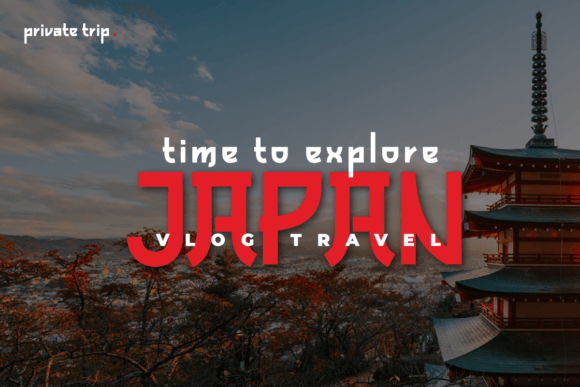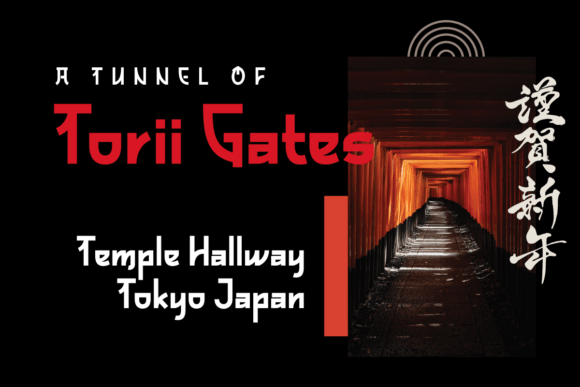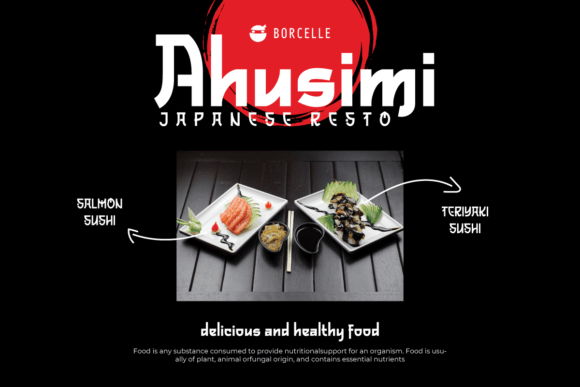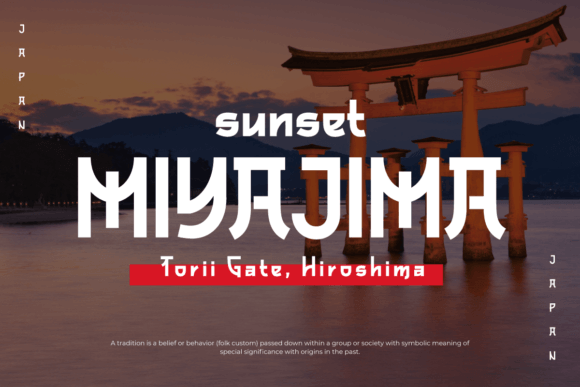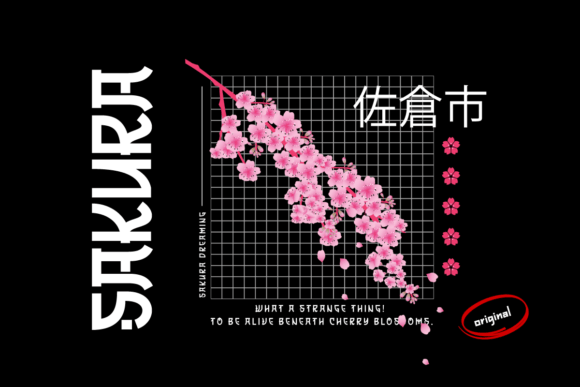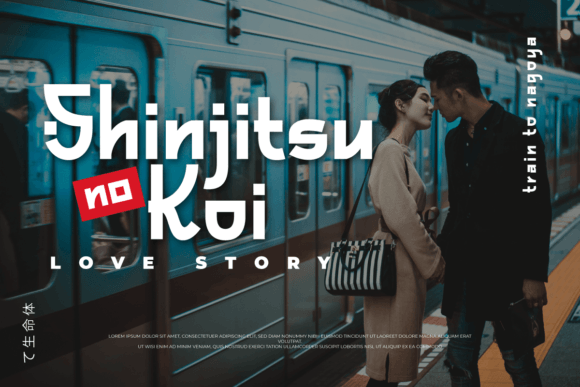
Introduction to Sament Font
Do you remember that moment when you stumbled upon the perfect font to elevate your creative project? For designers, it’s a moment of pure joy, and it’s exactly what the Sament Font promises to deliver. This Japanese Style typeface is designed to add a distinctly Asian touch to your work, making it stand out from the crowd.
Imagine having a design resource that not only adds uniqueness to your work but also provides a high-quality experience. The Sament Font is that resource, perfect for designers who want to add a creative twist to their projects. With its exquisite style and eye-catching appearance, this font is sure to make your designs shine, whether you’re working with a transparent background or a complex layout.
Key Features of Sament Font
- High-quality typography for creative projects, offering a unique and stylish look.
- Comes with a transparent background, allowing for easy integration with any design or image.
- Features a clean and modern design, suitable for a wide range of creative projects, from logos to graphics.
Honest Review: Sament Font
- What works well: ✨ The Sament Font is extremely versatile, suitable for a wide range of applications, from headings to body text. Its sleek and modern design makes it a great choice for minimalist layouts.
- What works well: ✨ The font also comes in a transparent background option, allowing for seamless integration with images or other design elements.
- What works well: ✨ The Sament Font is available in multiple weights and styles, making it easy to customize and match the tone of your project.
While the Sament Font is generally a high-quality design resource, there are a few limitations to consider:
- ⚠️ The font may not be suitable for complex or intricate designs, as it can appear somewhat simplistic in certain contexts.
- ⚠️ Some users may find the font’s modern design to be too trendy or overused, potentially detracting from the overall impact of their creative project.
Overall, I’m quite impressed with the Sament Font. Its versatility, high-quality design, and transparent background options make it a valuable addition to any design library. Whether you’re working on a creative project or simply looking for a reliable font, the Sament Font is definitely worth checking out.